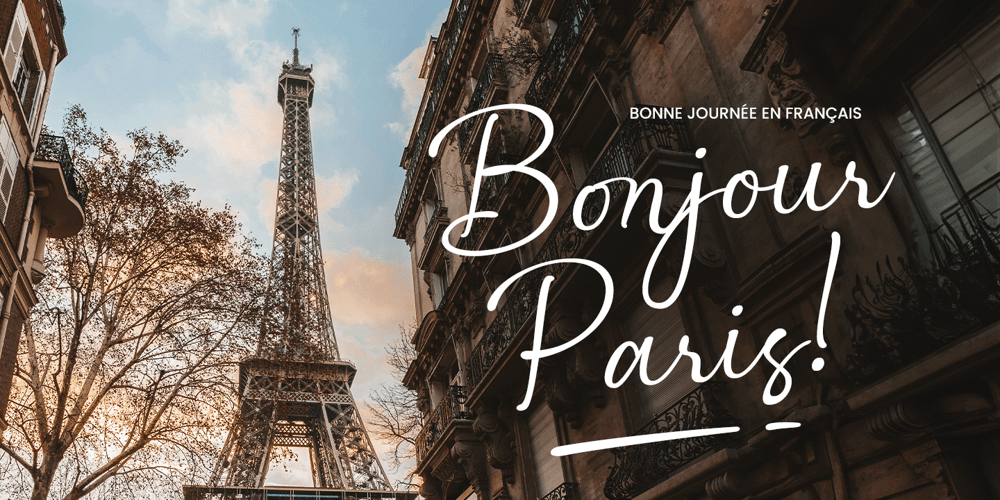
Moutillo Font Family was designed by Novitasari Romli and published by Novitype. Moutillo contains 1 styles and family package options. Moutillo is a handwritten font with a natural flow and modern feel. with smooth connections between letters, flexible lines give a beautiful, romantic, and elegant impression, making your design look more personable.You can combine this font with other typefaces. Also perfect for use on logos, invitations, books, quotes, logotypes, flyers, cosmetics, packaging, and more.What you’ll get : Upper case Lower case Numbers Punctuation Symbols Stylistic set 01-02 Ligatures